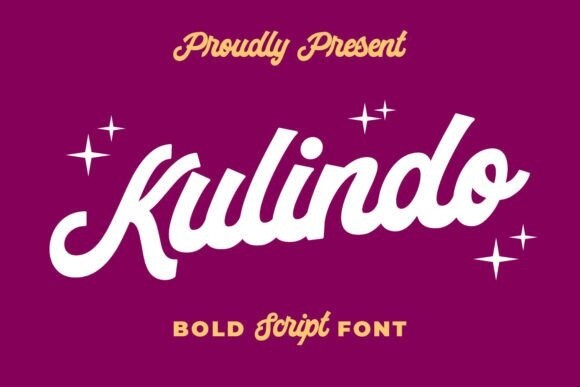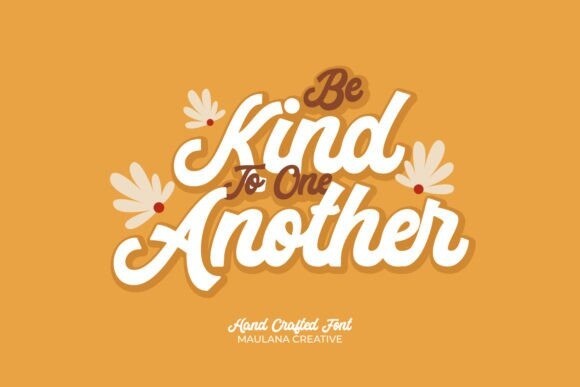
Kulindo Font
Kulindo Font is a bold and fun script font. This font is good for logo design, social media, movie or book titles, social media, posters, flyers, invitations, decorations and so much more.